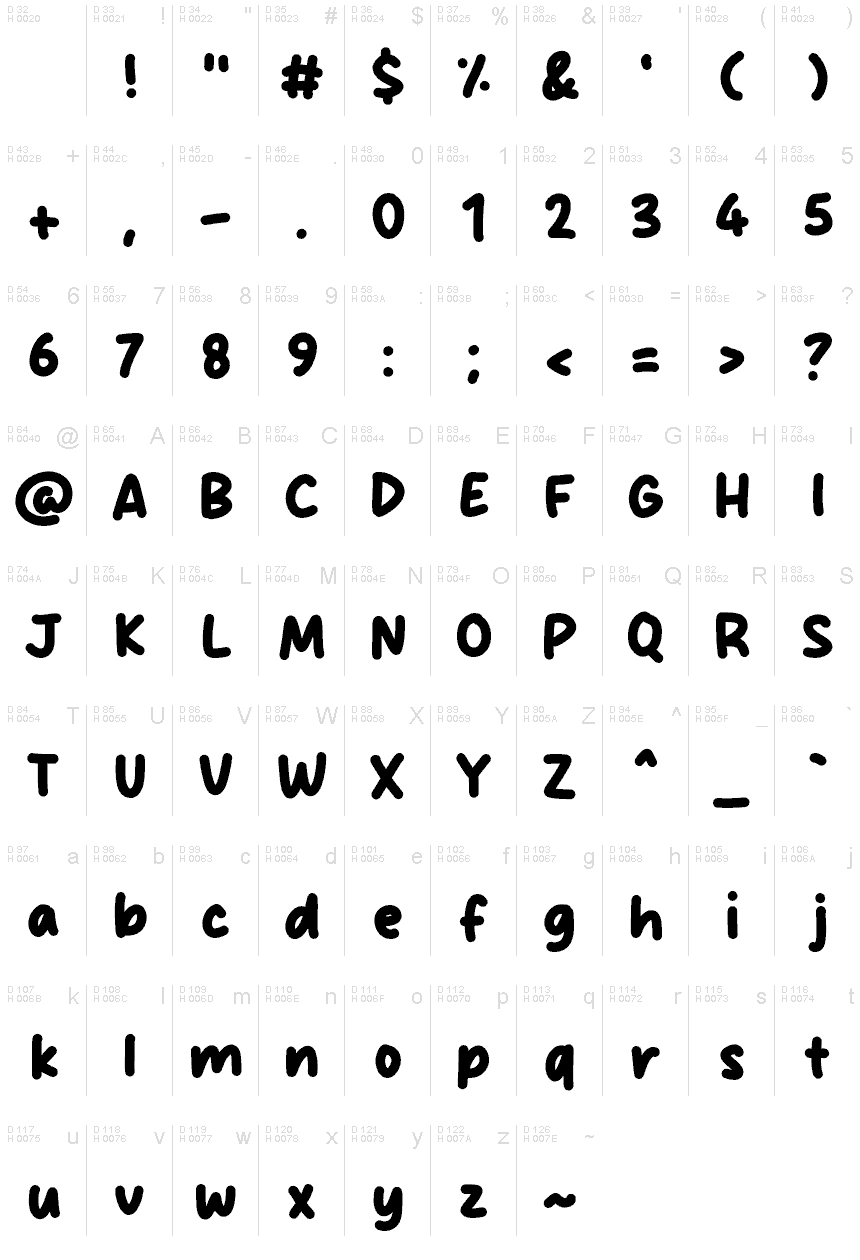
Great Melon
Great Melon font by MJType is a bold brush font. Its fluent strokes create an approachable and friendly look that makes it even more popular for its casual feel. Present the texts of your advertising and branding projects in an informal manner as contemporary as can be.
This free brush display font can decorate business cards, menus, invitations, packaging designs, booklets, gift notes and cards, etc.